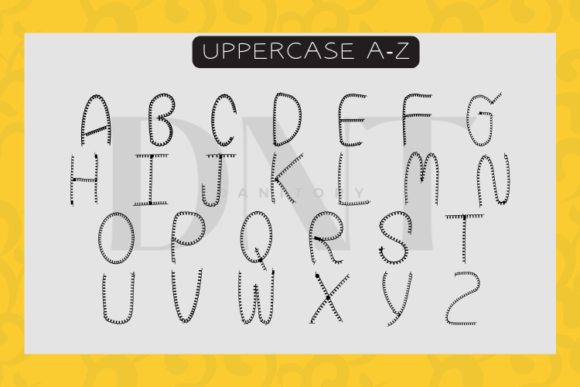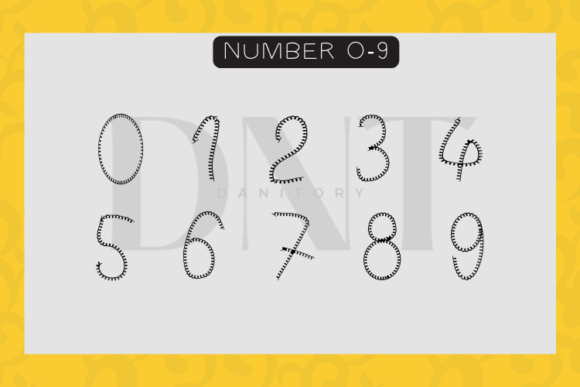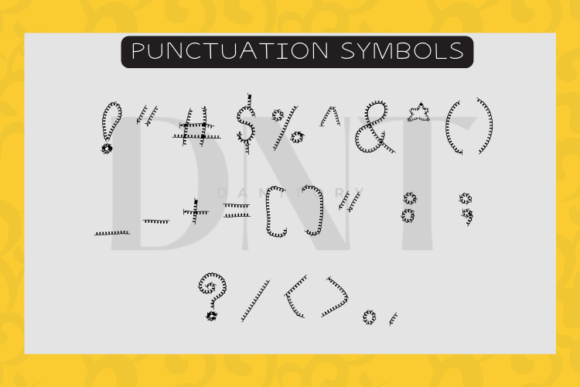
Introduction to Sewing Font
Sewing is a decorative font that is cool and has style.
You may use this all-caps decorative font to decorate a card for your loved one or to create a beautiful invitation, stationery art, eye-catching social media posts, and cute greeting cards .
Key Features of Sewing Font